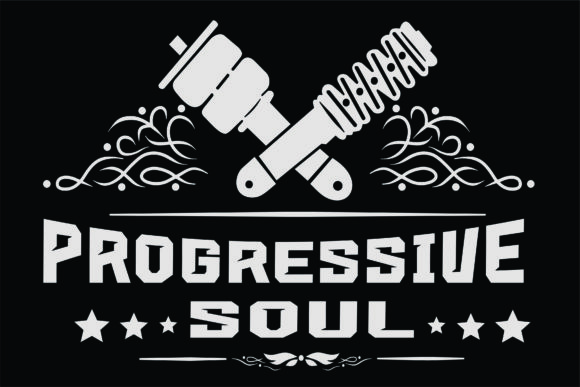
Dive into the realm of vintage allure with Progressive Soul, a display font family that exudes timeless charm and modern elegance. This font is a masterpiece of digital artistry, meticulously designed to evoke a sense of nostalgia and sophistication. Each letterform is carefully crafted to embody the essence of classic typography, reminiscent of bygone eras.
Unleash your creativity and transport your designs to a world of vintage charm. Progressive Soul is an essential tool for designers seeking to capture the essence of timeless elegance. Whether you're creating a captivating poster, an eye-catching flyer, or a stunning print, this font will effortlessly elevate your work.
Immerse yourself in a world of endless possibilities with Progressive Soul. Let your imagination run wild as you explore the myriad ways to incorporate this font into your designs. The possibilities are limited only by your creativity. Embrace the allure of Progressive Soul and unlock a new realm of design brilliance.